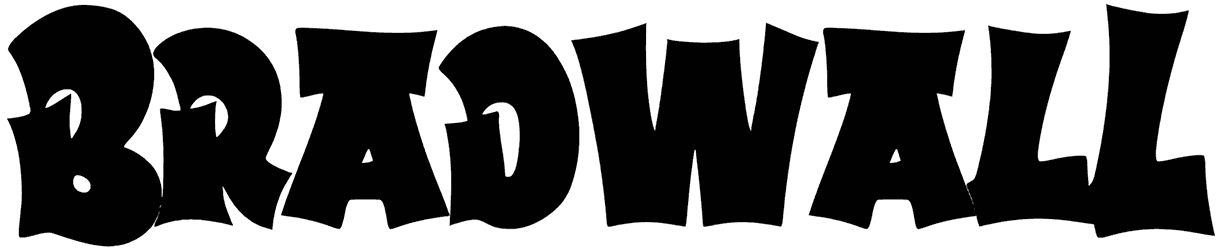
Bradwall Font
If you’ve been searching for a fat graffiti font for your project, we might have what you desire! Bradwall comes in extra-bold characters and brings a casual and urban vibe to your text design.
It can be a perfect host for various content needs, such as banners, video games, titles, etc. By the way, this case doesn’t support lowercase letters. To get more of this category, don’t miss our boundless website!